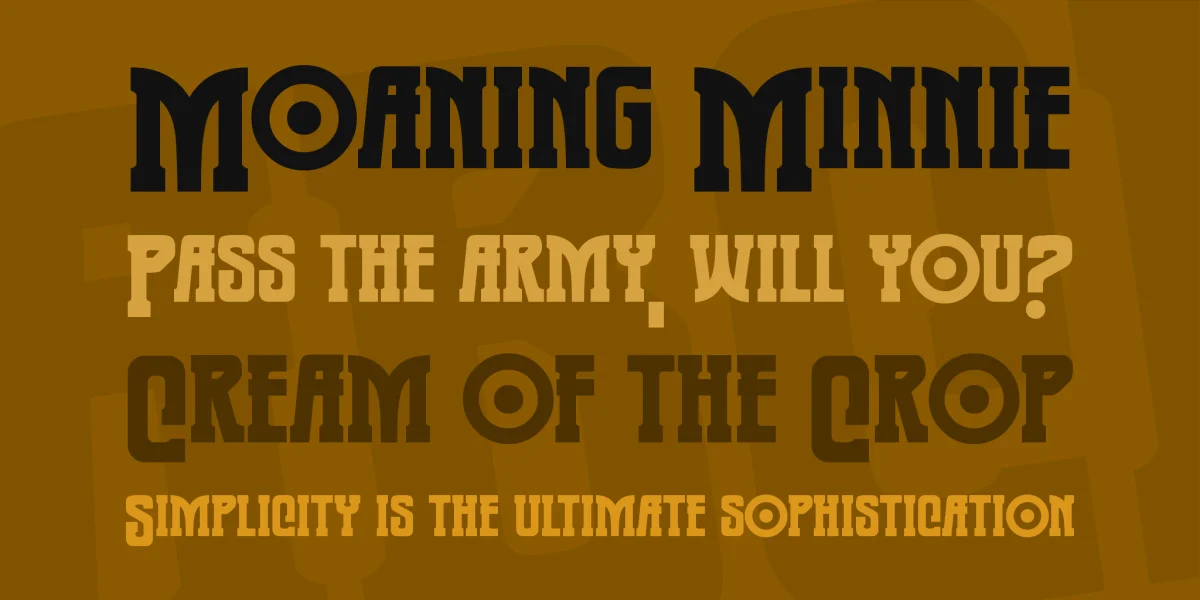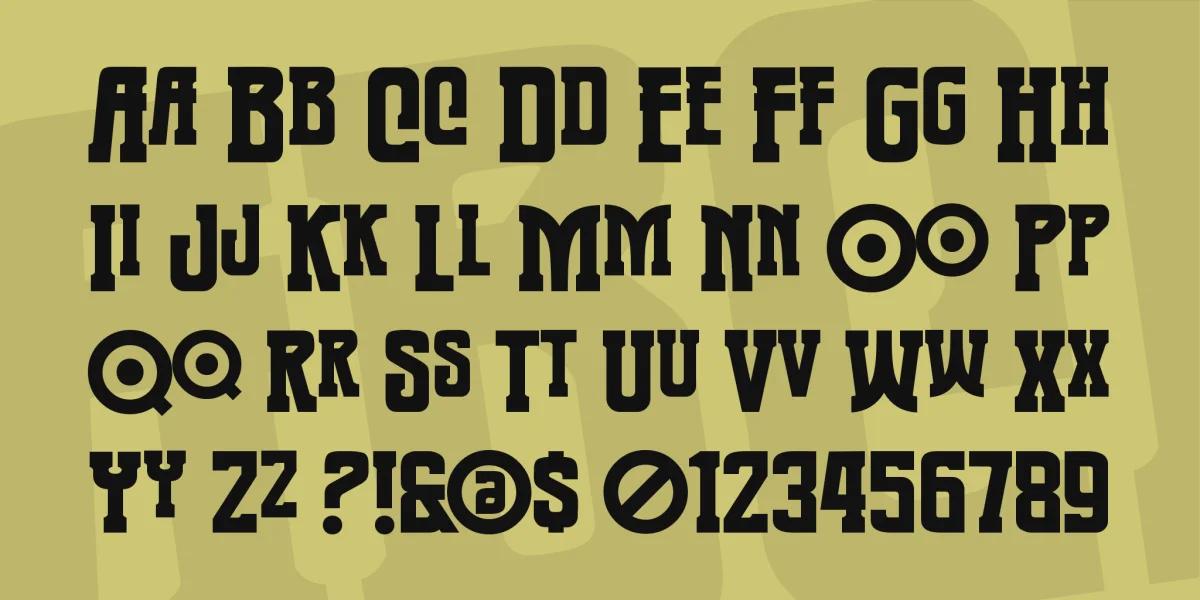
A puzzle wrapped in an enigma, dipped in a lightly salted fondue of industrial might! WARMONGER is perfectly at home in science fiction and fantasy alike! Dig in!